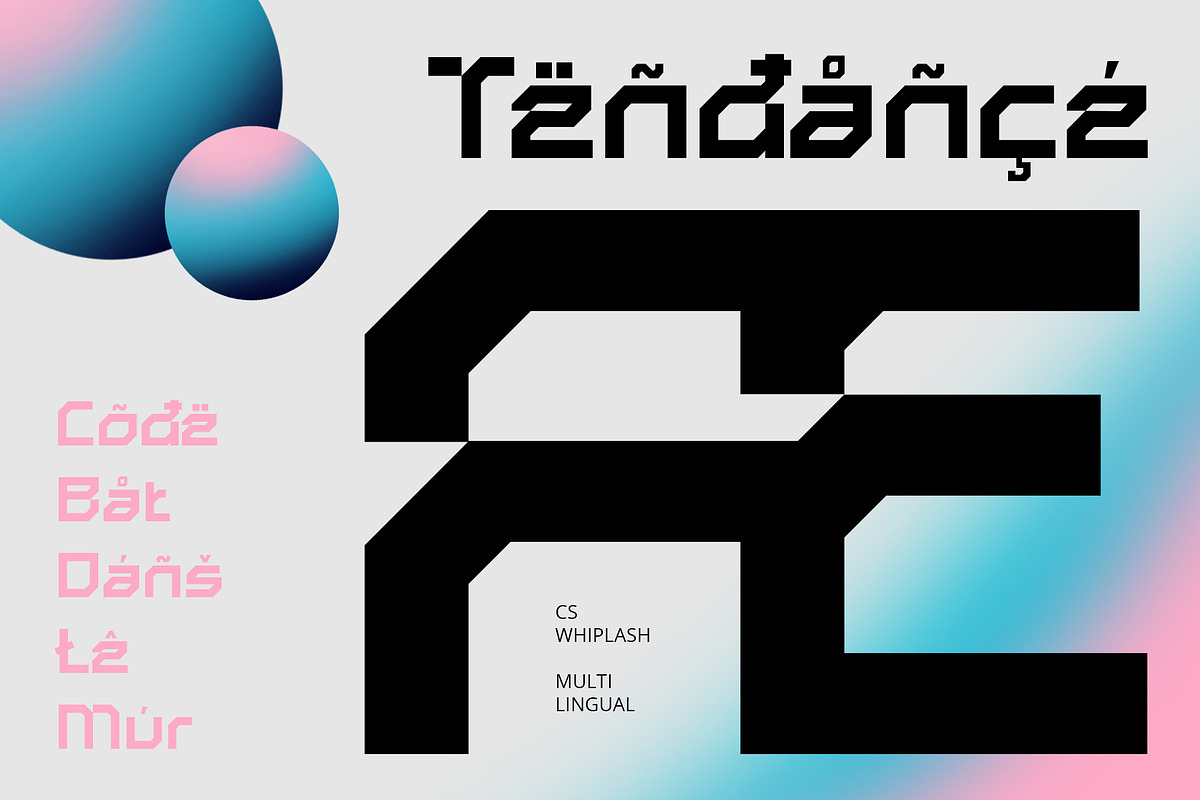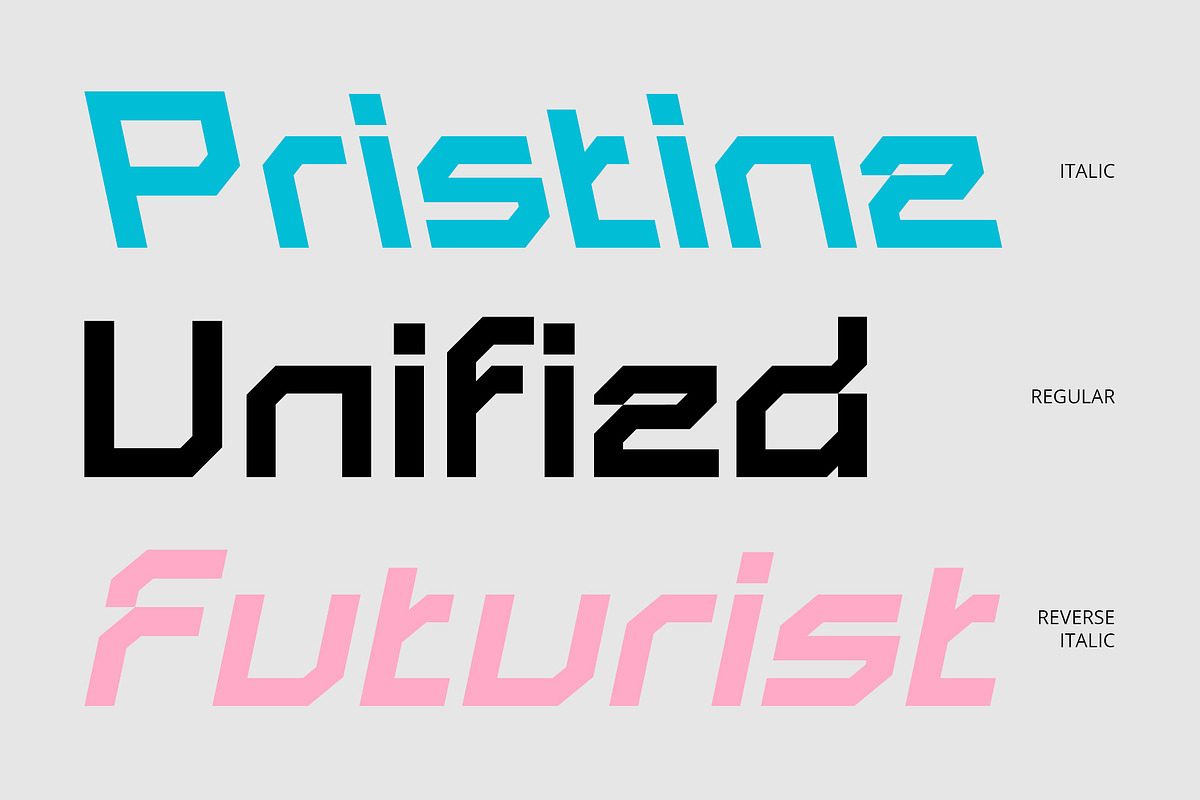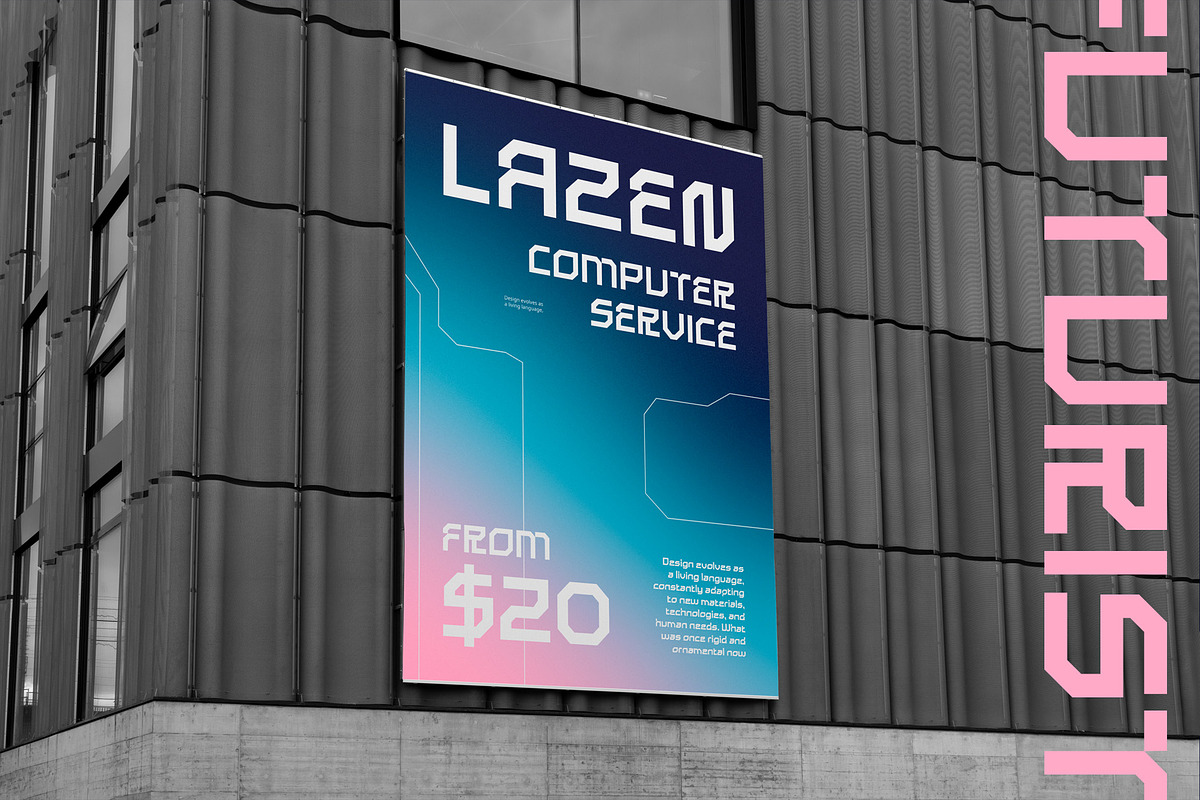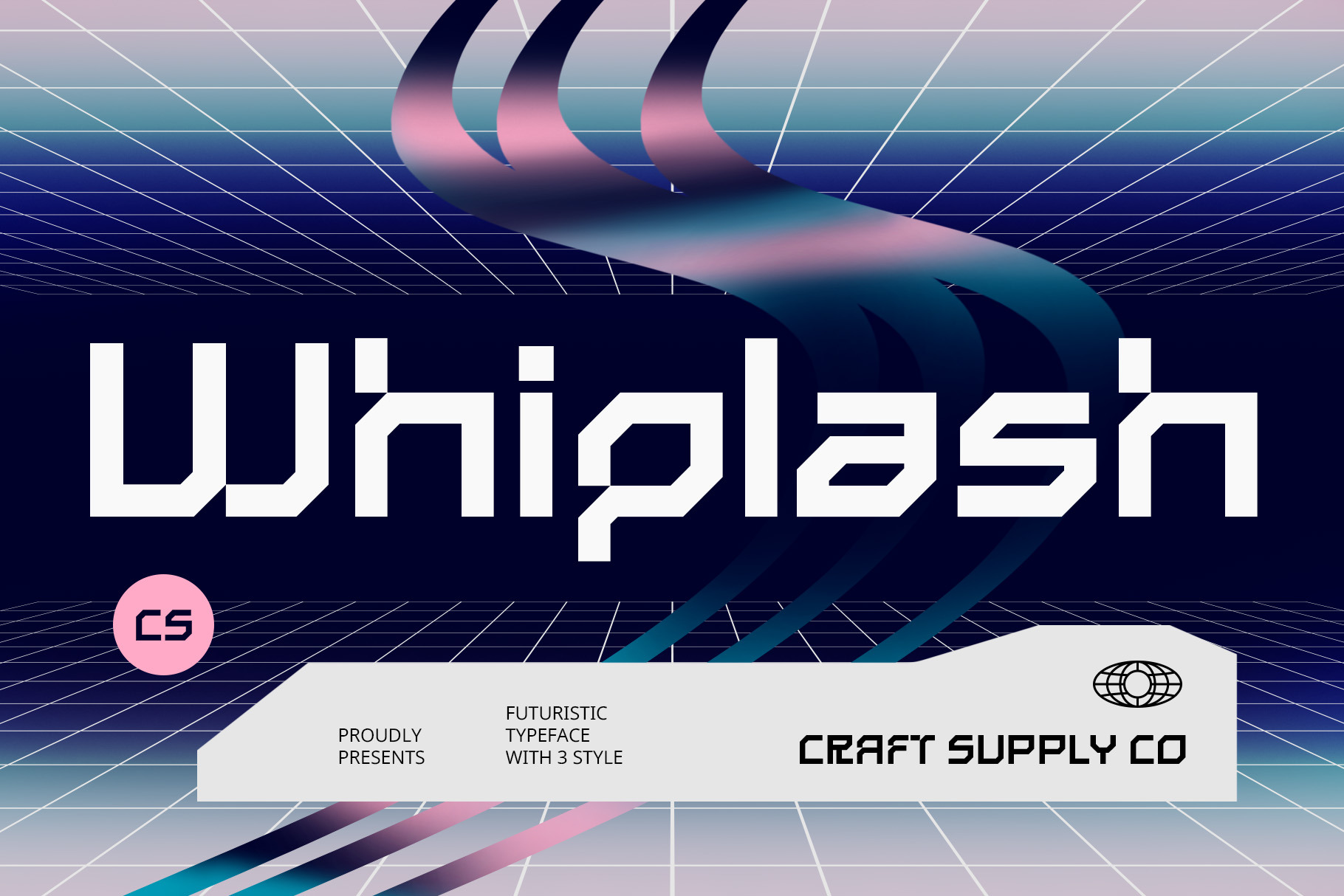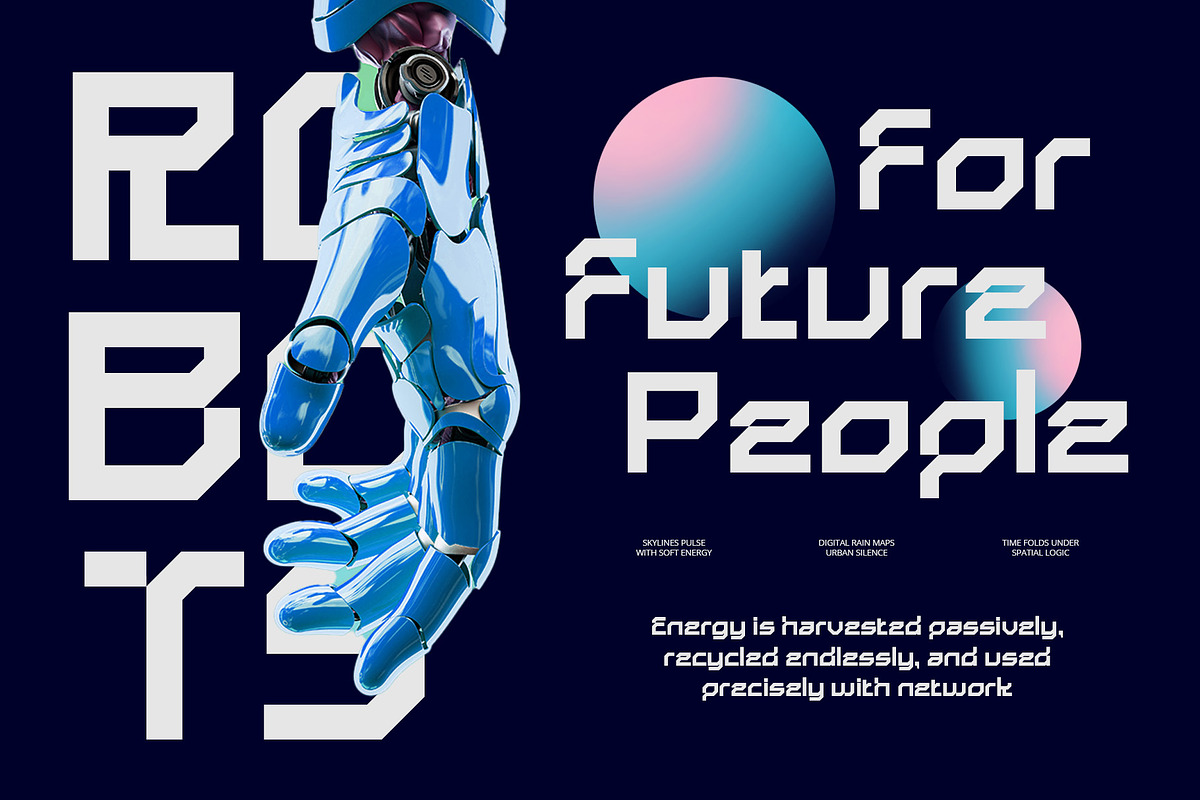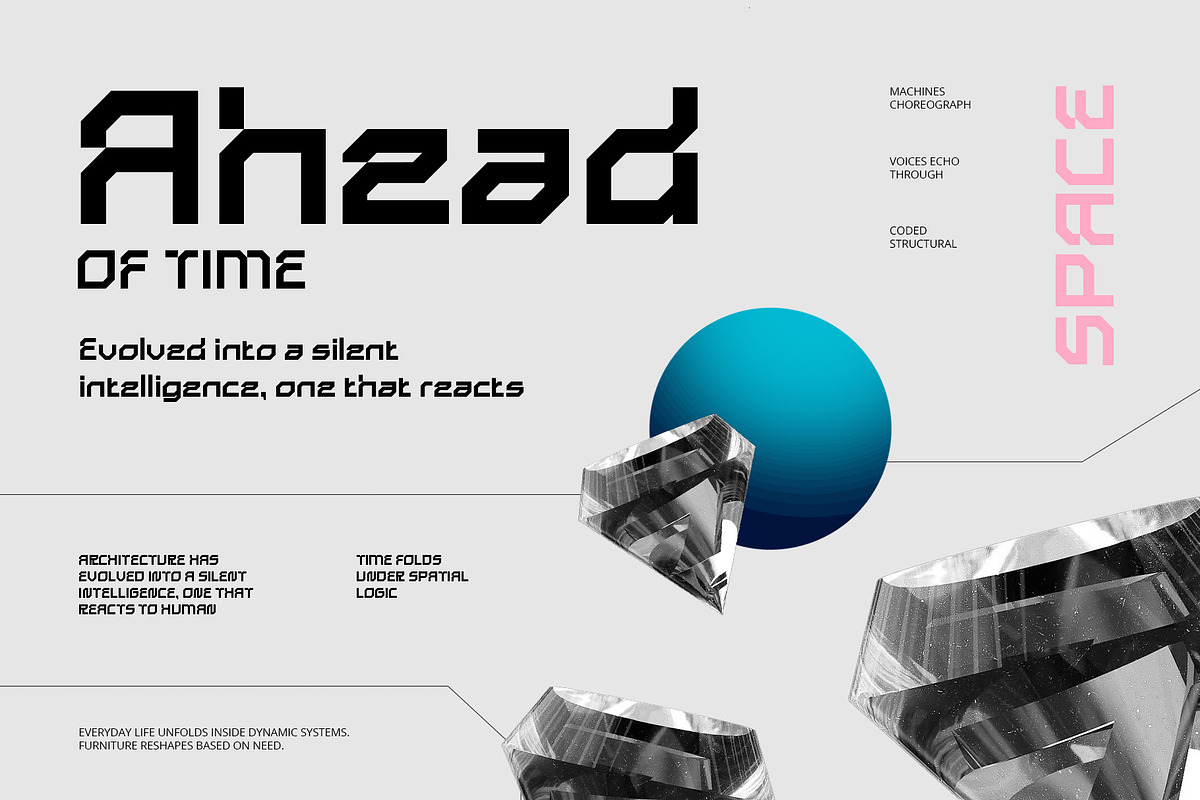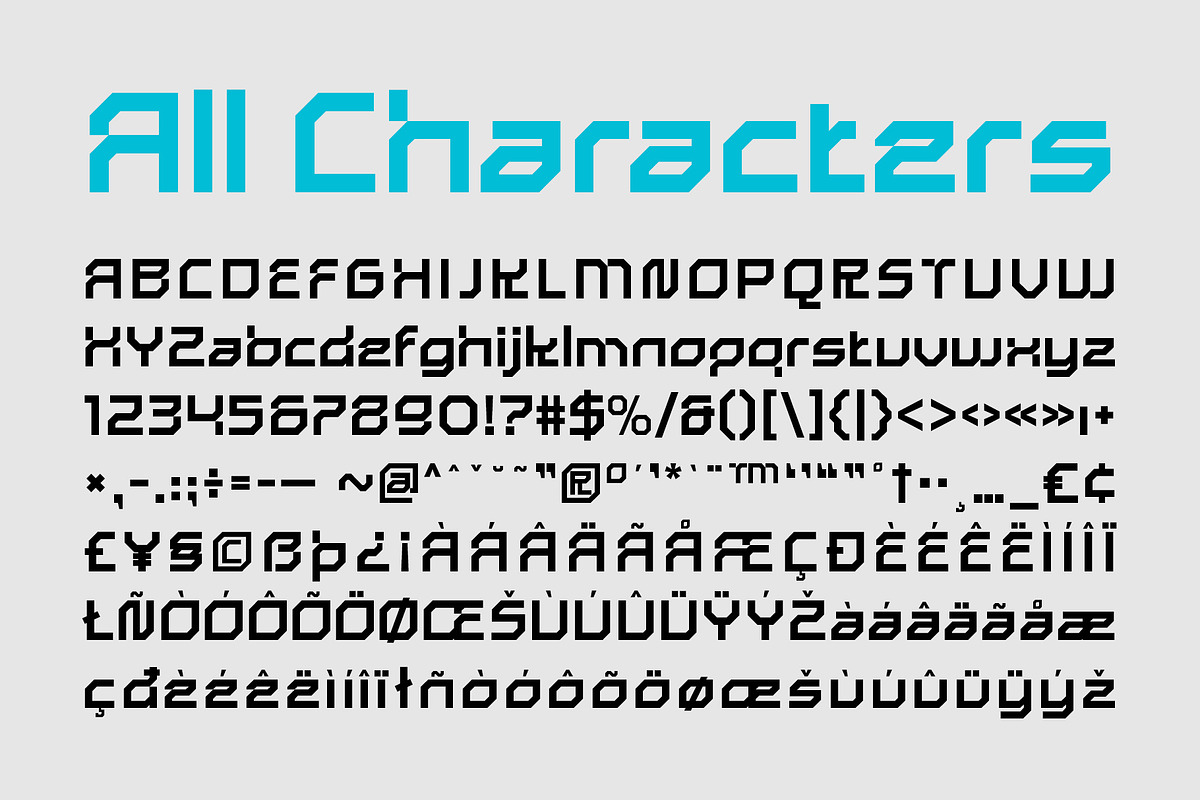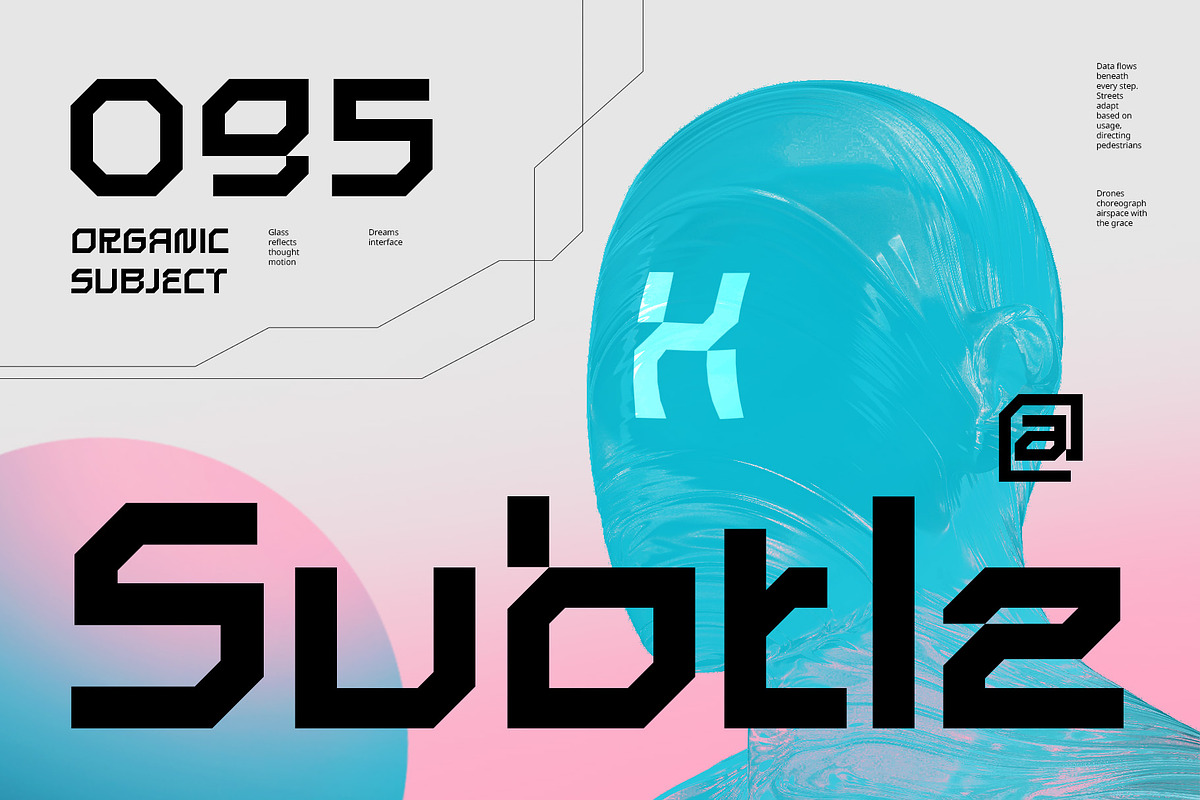
CS Whiplash – Techno Font
CS Whiplash – Techno Font: Precision Meets Innovation
Modern Techno Display Font CS Whiplash is a modern display font with a techno, futuristic, and geometric design that projects a highly technical and innovative impression. The sharp, clean letterforms are filled with geometric precision, presenting a structured, organized style that is both bold and efficient.
Geometric and Digital Elements for a High-Tech Look With its distinct techno style, CS Whiplash features straight lines, sharp angles, and digital-inspired elements, offering a machine-like aesthetic. This geometry conveys a sense of cutting-edge technology, making the font appear advanced and ultra-modern. The clean, precise structure aligns with contemporary design trends, resulting in a futuristic feel.
Dynamic and Progressive Mood The mood of CS Whiplash is dynamic, technical, and forward-thinking, perfectly suited for designs that focus on technology, digital products, or innovations that embody a sense of progress. Its futuristic aesthetic suggests an evolving world driven by technology and efficiency.
Perfect for Tech and Innovation-Based Projects Whether for tech company branding, game design, digital spaces, or other futuristic projects, CS Whiplash brings sophistication and cutting-edge appeal to any creative endeavor. This font is ideal for designs that demand a high-tech, modern, and innovative identity.
- CS Whiplash Regular
- CS Whiplash Italic
- CS Whiplash Reverse Italic